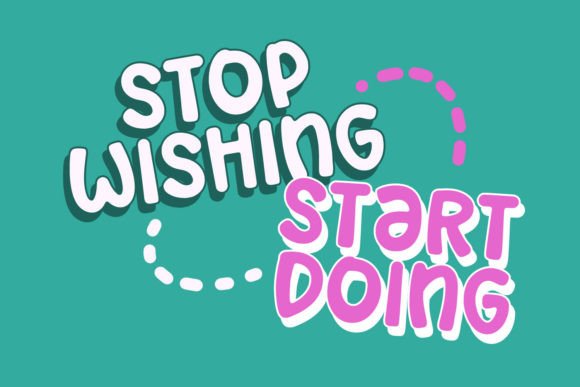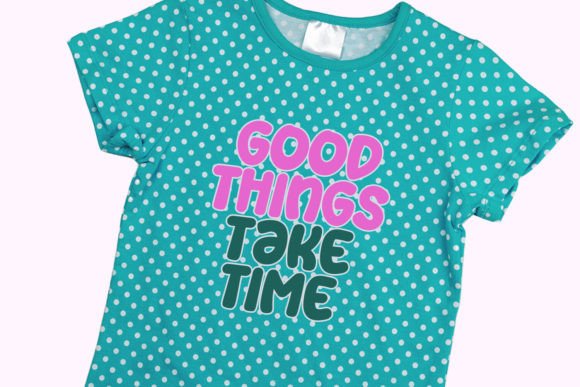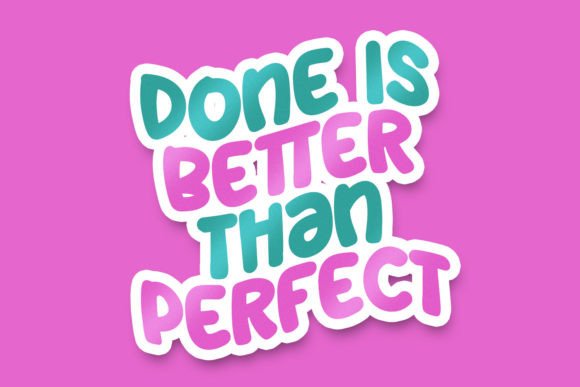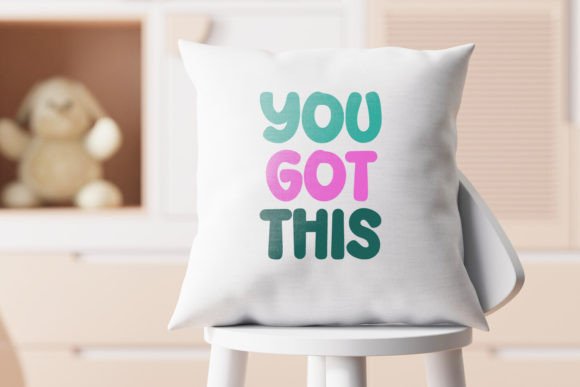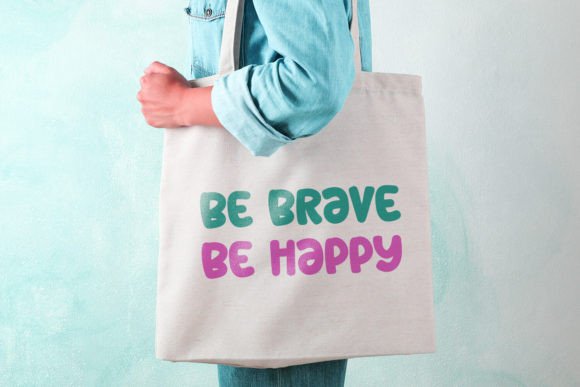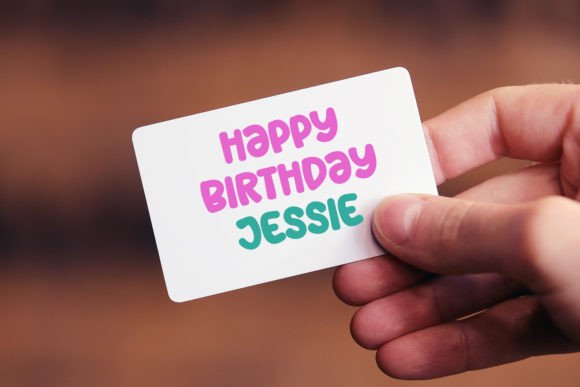
The Perfect Font for Making a Statement
Have you ever stared at a blank page, desperate for inspiration to strike? That’s exactly what happened to me last week while brainstorming ideas for a new project. I was scrolling through font collections, and suddenly, I stumbled upon the Borner Wilds Font. Its bold, all-caps lettering and playful charm immediately caught my attention, and I knew I had to learn more.
Borner Wilds Font is a display font designed to make a statement. With its confident and energetic vibe, it’s perfect for eye-catching headlines, dynamic posters, and vibrant branding. The constant letter proportions ensure a cohesive and balanced appearance, making it an excellent choice for designers looking to add some excitement to their work.
Borner Wilds Font Key Features
- Font Family: Borner Wilds Font is a sans-serif font with a unique, hand-drawn style.
- Unique Characteristics: Features a distinctive, hand-drawn style with subtle irregularities and variations in line width.
Borner Wilds Font Review
I recently had the chance to work with the Borner Wilds Font, and I must say it’s been an interesting experience. Here are my thoughts on what works well and what doesn’t.
- Unique Character: The font’s unconventional design makes it stand out in a crowded market. Its organic feel and irregular shapes give it a distinctive character that can be a great asset for creative projects.
- Expressive Variations: Borner Wilds Font offers a range of expressive variations that can be used to convey different emotions and moods. This can be particularly useful for designers looking to add depth and nuance to their work.
- High-Quality Typography: The font’s typography is top-notch, with clear and legible letterforms that make it easy to read even at smaller sizes.
- Difficulty in Legibility: While the font is high-quality, its unique design can sometimes make it difficult to read, especially in larger blocks of text.
- Limited Compatibility: I found that Borner Wilds Font doesn’t work well in all contexts, particularly in situations where a more traditional font is required.
The Borner Wilds Font is a bold and expressive typeface that can be a great addition to a designer’s toolkit. While it may not be suitable for all projects, its unique character and high-quality typography make it a great choice for creative and innovative work. With a little careful consideration and planning, Borner Wilds Font can be a powerful tool for designers looking to add some edge to their work.
Use the Borner Wilds font to add a rustic touch to your social media graphics, blog posts, or marketing materials.
Use the Borner Wilds font to add a vintage touch to your print designs, logos, or packaging materials.
Use the Borner Wilds font to add a unique touch to your presentations, reports, or documents.
Combine the Borner Wilds font with other rustic or vintage elements, such as distressed textures or watercolor effects, to create a unique and eye-catching design.
Use the font in moderation to avoid overwhelming your design with too much texture or visual interest.